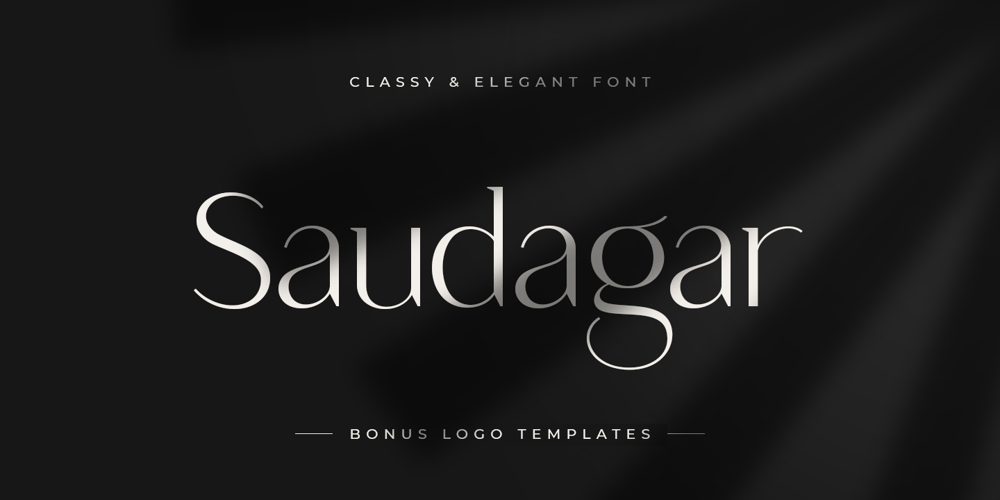
Saudagar Font Family was designed by Zamroni Hamzah and published by Sensatype Studio. Saudagar contains 1 styles and family package options. Saudagar is a stylish modern calligraphy font with casual chic flair. It is perfect for branding, wedding invites and cards, and maybe for some project.Saudagar includes a full set of gorgeous uppercase and lowercase letters, numerals, and alternates.In order to use the beautiful alternates, you need a program that supports OpenType features such as Adobe Illustrator CS, Adobe Photoshop CC, Adobe Indesign, and Corel Draw. but if your software doesn’t have Glyphs panel, you can install additional alternates font files:Thanks and have a wonderful day